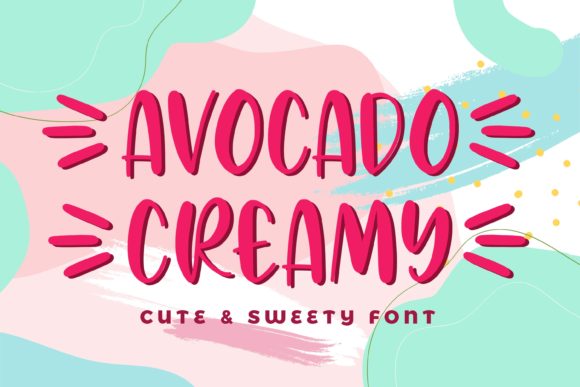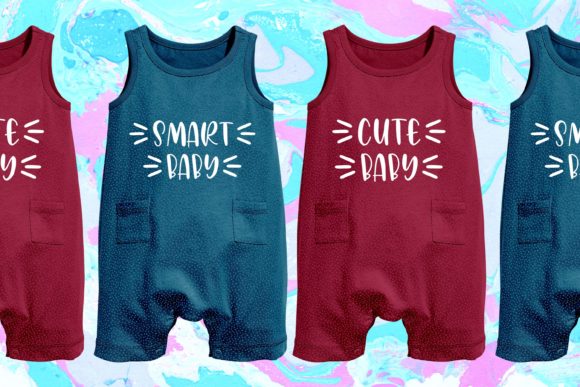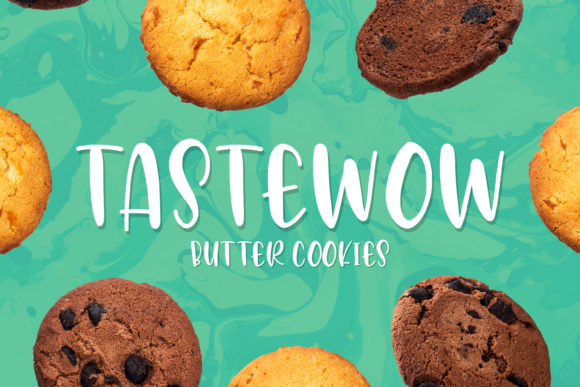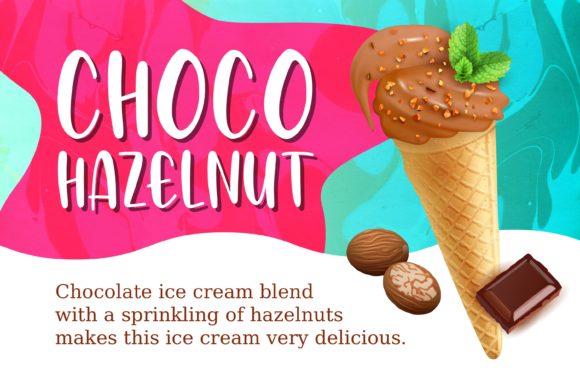
Avocado Creamy Font
About the Avocado Creamy Font
The Avocado Creamy Font is here to transform your projects with its distinctive character and style. Avocado Creamy is sweet and playful, but also elegant. Fall in love with its dynamic charm, and make this fancy script part of your craft library now.
Avocado Creamy’s playful elegance makes it ideal for projects requiring a touch of whimsy and sophistication, such as logos for boutiques, wedding invitations, or short-form marketing materials like social media posts and packaging designs for premium products. However, its decorative nature makes it less suitable for extended body text or UI elements where readability is paramount.
Pairing Avocado Creamy works best with a clean sans-serif like Montserrat for a modern contrast, or a classic serif such as Garamond for a more timeless feel. For a bolder statement, consider pairing it with a geometric sans-serif such as Futura. Avoid pairing it with other highly decorative fonts, as this can lead to visual clutter.
The font projects a friendly, approachable yet refined personality. Its gentle curves and slightly irregular forms convey a sense of handcrafted charm, making it perfect for brands aiming for a balance between sophisticated and approachable.